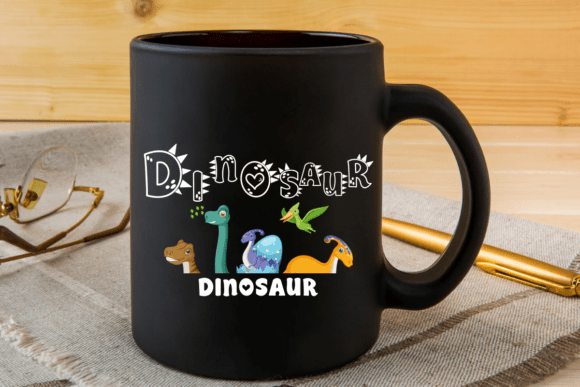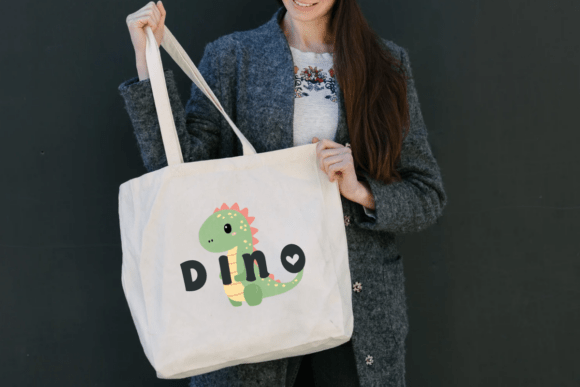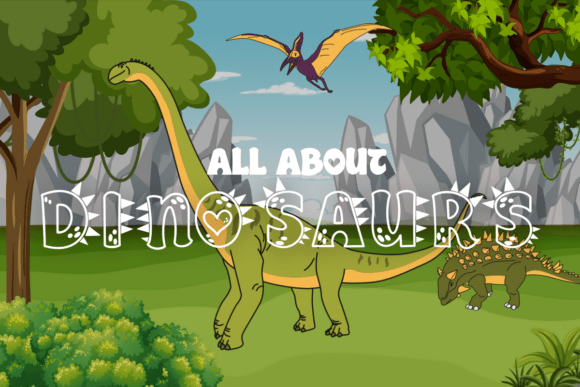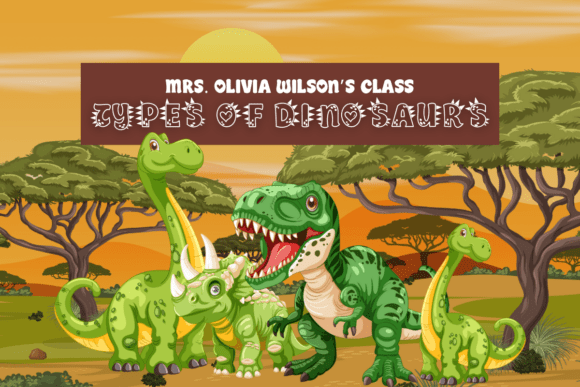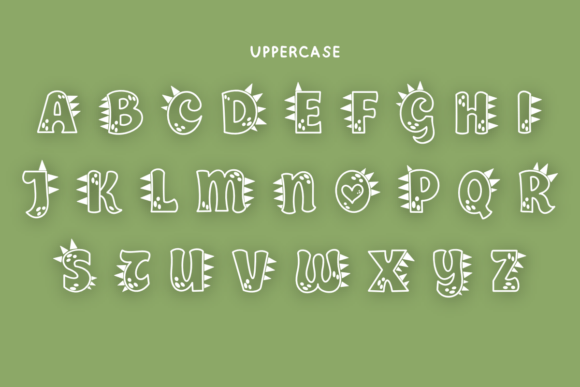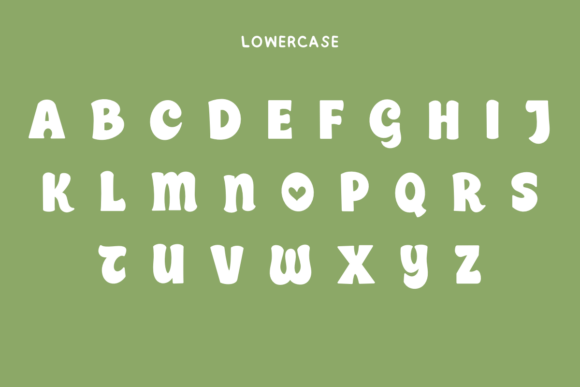
Unlock Endless Design Possibilities with Dinosaur Cute Font
Have you ever been in the middle of a design project, and suddenly, you just can’t seem to find the right font? I recall a particularly frustrating moment when I was working on a children’s event banner. The design was almost complete, but the font I was using just wasn’t cutting it. It was then that I stumbled upon “Dinosaur Cute”, an adorably decorative font that instantly brought my design to life!
As a designer, crafty hobbyist, or creative enthusiast, you’re probably always on the lookout for that perfect font to elevate your work. Well, your search might just end here with “Dinosaur Cute”. This charming font is not just for note-taking, journaling, or greeting cards; it’s versatile enough for a broad range of design projects.
An Honest Review of Dinosaur Cute Font
- ✅ Adorable and playful design that’s perfect for kids’ projects or adding a whimsical touch to any design.
- ✅ Highly versatile and can be used for various design projects, from banners and cards to social media posts.
- ✅ Easy to read, even at smaller sizes, which makes it practical for a range of applications.
- ✅ The font comes with a range of OpenType features, glyphs, and stylistic alternates, giving you plenty of creative options.
While “Dinosaur Cute” is an amazing font, there are a few things to keep in mind. For instance, it might not be the best choice for very formal projects or designs that require a more serious tone. Also, some of the special characters and glyphs might require a bit of experimentation to get just right.
One thing to note is that the font might have some limitations when it comes to scalability. While it looks great at larger sizes, it can become a bit pixelated when scaled down too much. However, this is a minor issue that can be easily worked around with some careful planning and design adjustments.
The Backstory Behind Dinosaur Cute
“Dinosaur Cute” was created with the intention of bringing a playful, whimsical touch to designers’ and hobbyists’ work. Inspired by the timeless fascination with dinosaurs and the desire to make design more accessible and fun, this font embodies a sense of nostalgia and playfulness.
| Font Name | Dinosaur Cute Font |
| Author | Bee piyanuch |
Q: Does Dinosaur Cute support OpenType features?
A: Yes, “Dinosaur Cute” comes with a range of OpenType features, including stylistic alternates and glyphs, allowing for a high degree of customization.
Q: Is Dinosaur Cute easy to read?
A: Despite its playful design, “Dinosaur Cute” is surprisingly easy to read, making it suitable for both display and body text in various design projects.
“Dinosaur Cute” is more than just a font; it’s a tool to unlock endless design possibilities. Whether you’re a seasoned designer or a creative hobbyist, this adorable font can add a unique touch to your projects. So, go ahead and let your creativity roar with “Dinosaur Cute”!